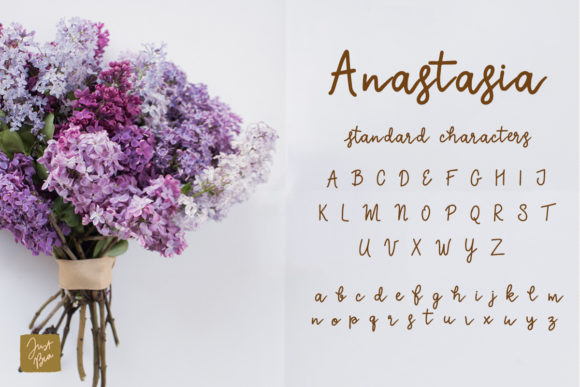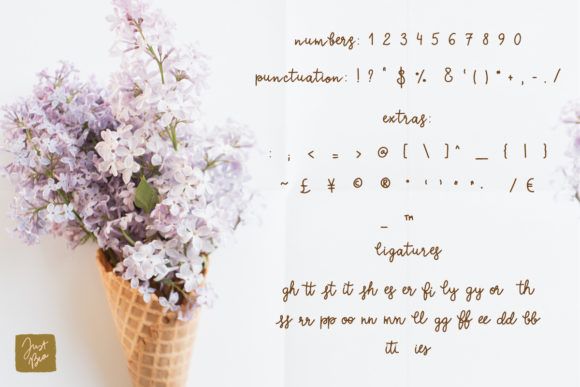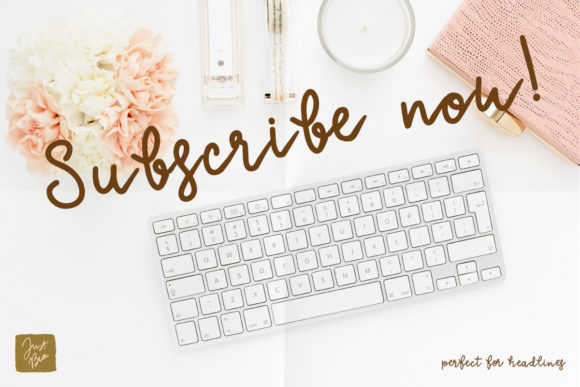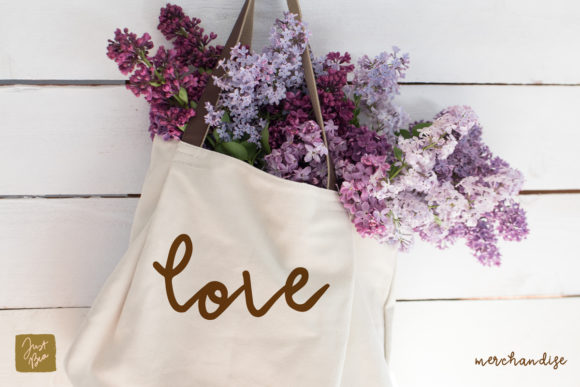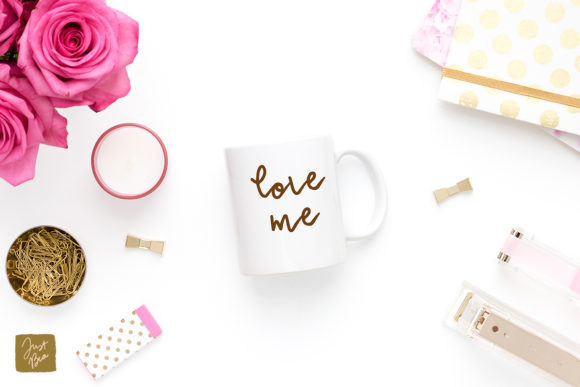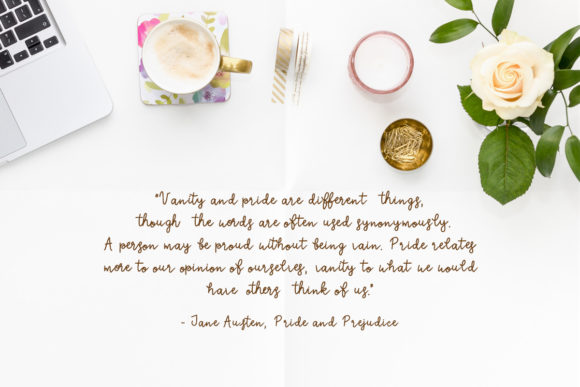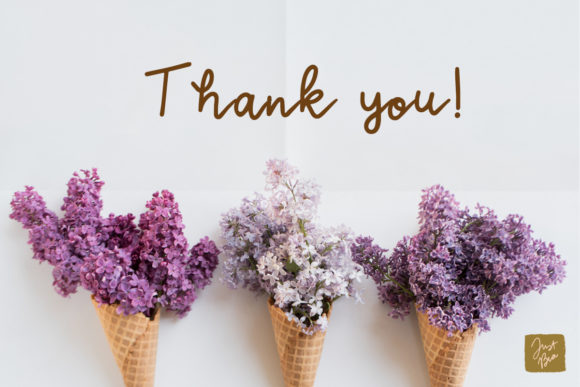
Anastasia Font
About Anastasia Font
Anastasia is a magical handwritten font carefully created with a touch of elegance. It features a varying baseline, smooth lines, gorgeous glyphs and stunning alternates. It will elevate a wide range of design projects to the highest level, be it branding, headings, wedding designs, invitations, signatures, logos, labels, and much more!